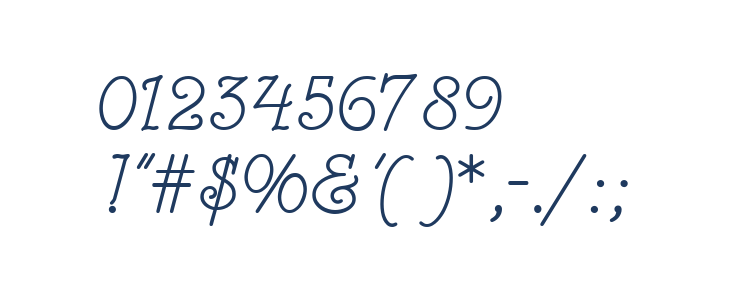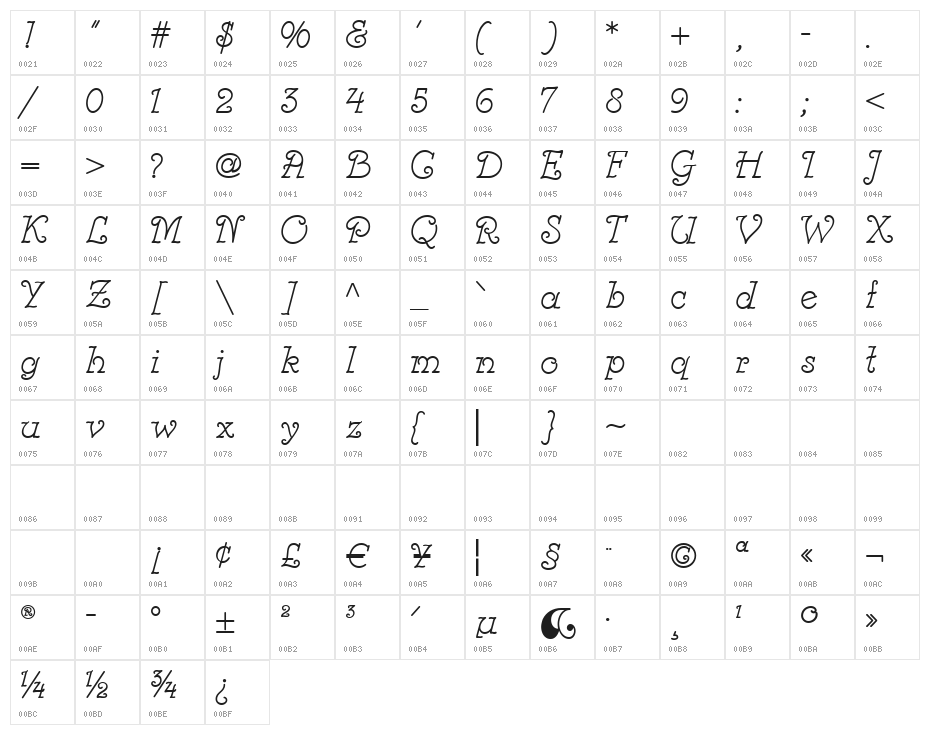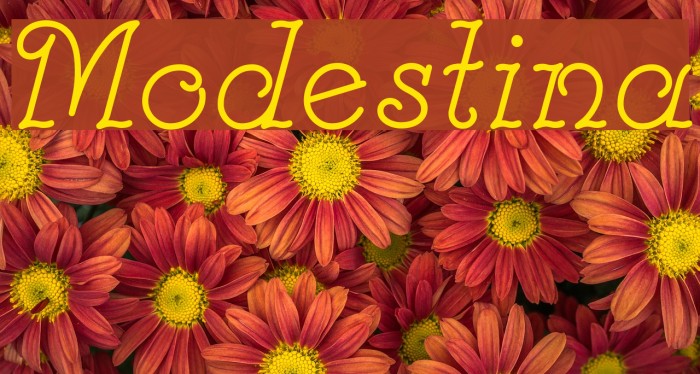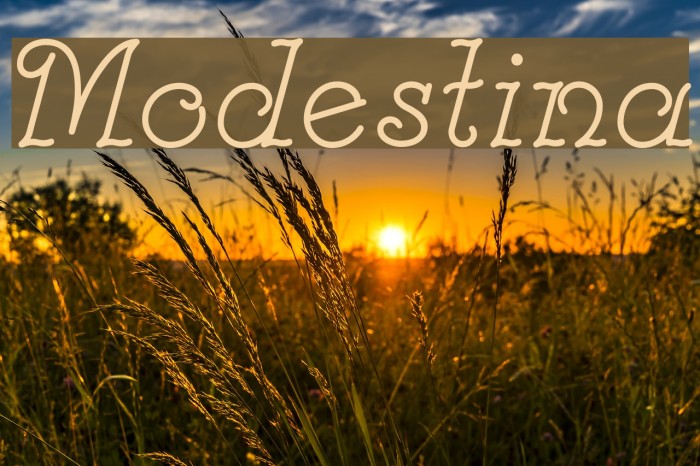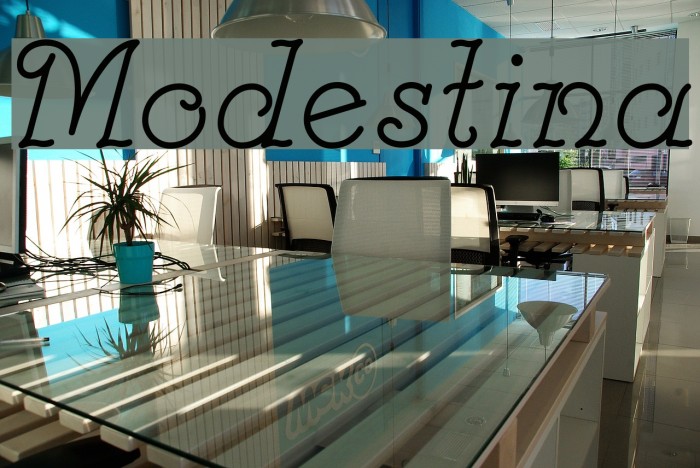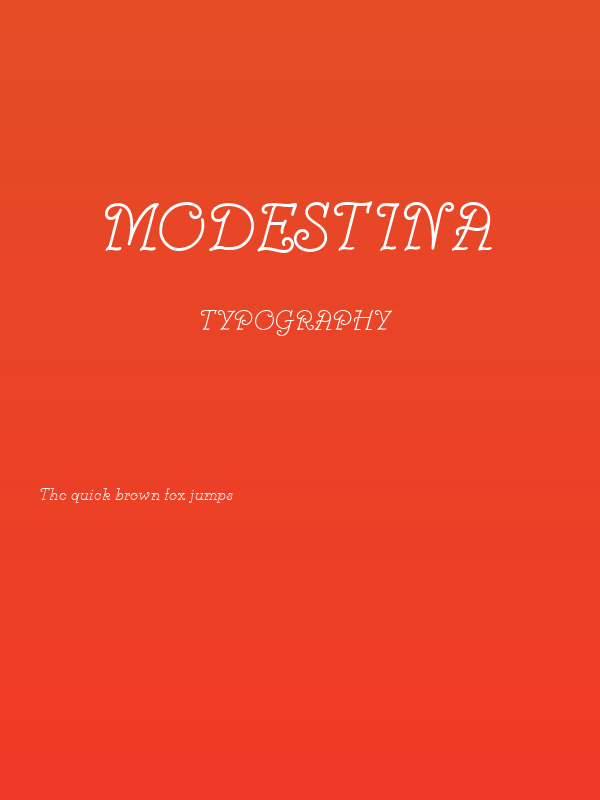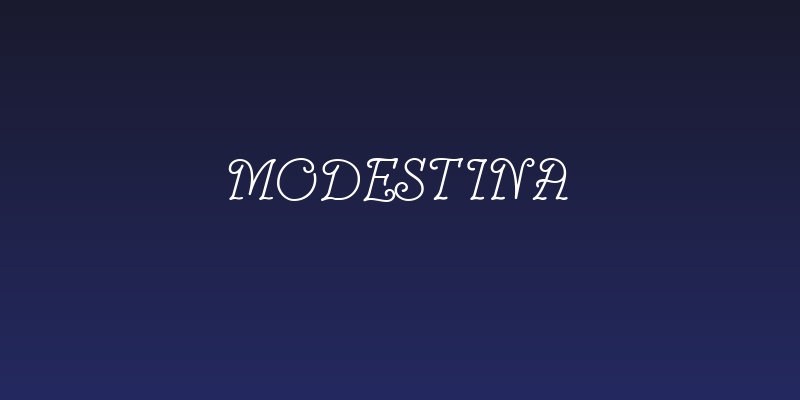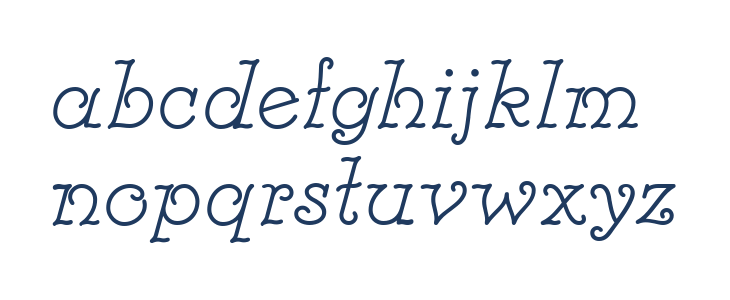
Modestina Font
Modestina Description
This font features a playful and elegant script style with a distinct handwritten quality. The characters are adorned with subtle curls and loops, giving it a whimsical yet sophisticated appearance. The uppercase letters are particularly ornate, while the lowercase letters maintain a consistent flow and readability. The numerals and special characters complement the overall design, maintaining the same decorative flair. This font is ideal for projects that require a touch of elegance and creativity, such as invitations, greeting cards, or branding materials.
| Use Case | Headlines, Logos, Decorative text |
| Proposed Projects | Ideal for invitations, greeting cards, branding, and decorative projects. |